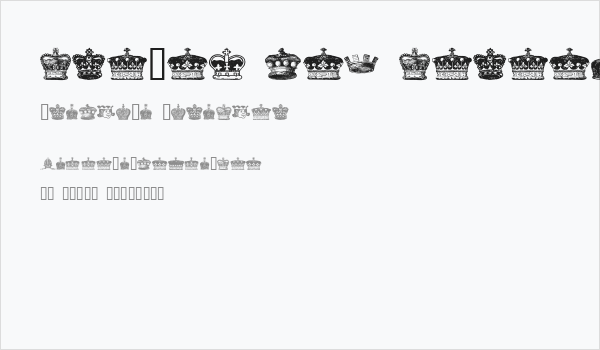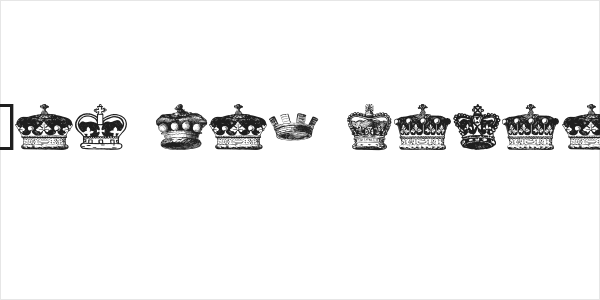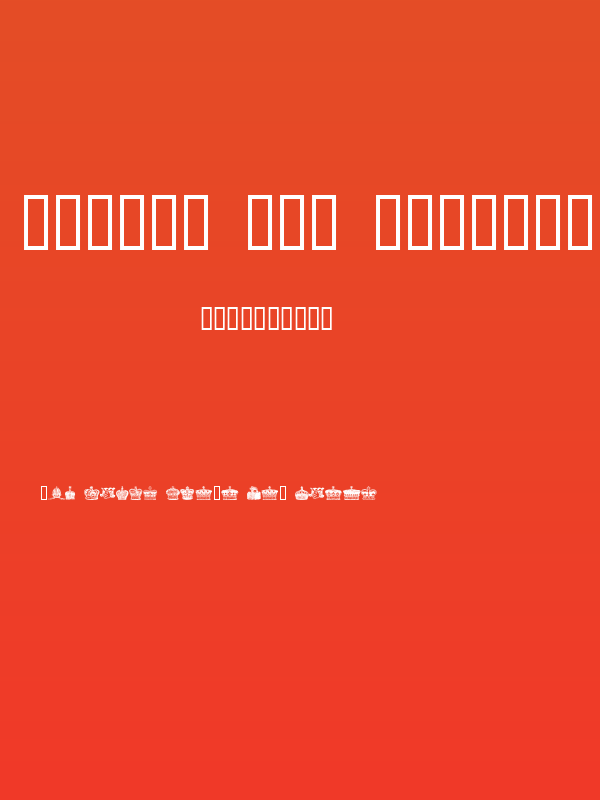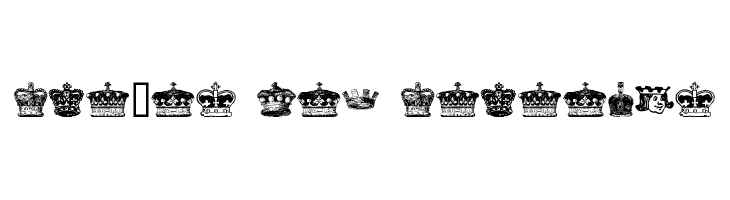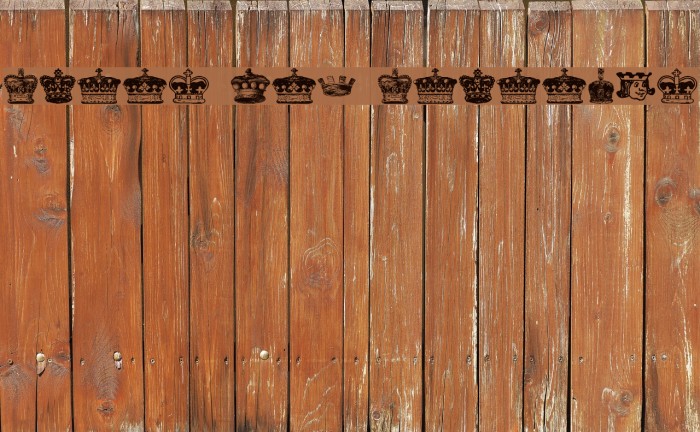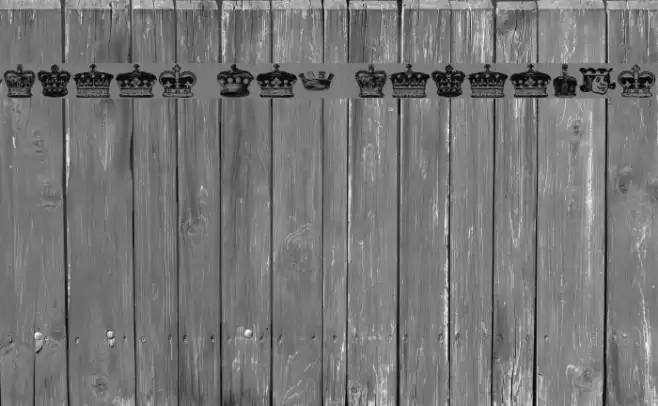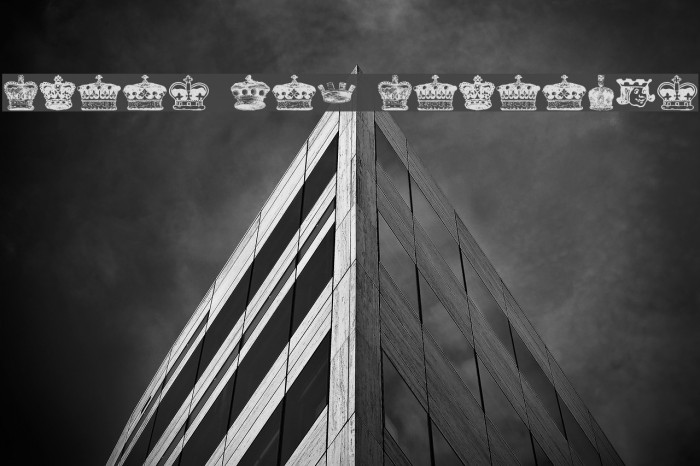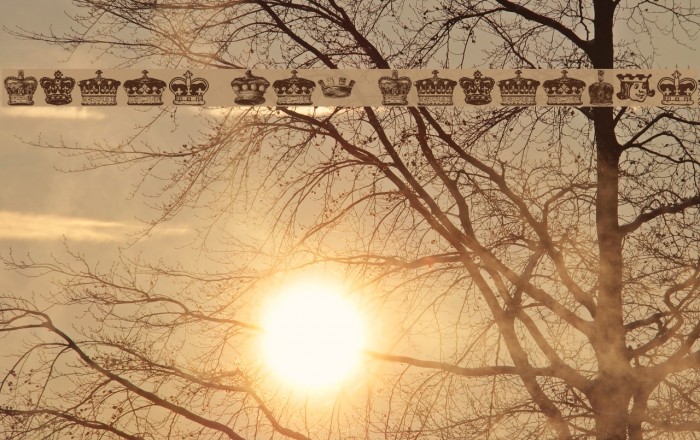
crowns and coronets Font
crowns and coronets Description
A decorative dingbat font featuring detailed black-and-white illustrations of various crowns, coronets, and royal headpieces, rendered in a vintage engraving style.
| Overall Style | Vintage, Decorative |
| Use Case | Decorative elements, embellishments, icons. |
| Proposed Projects | Invitations, certificates, heraldic designs, themed event materials, scrapbooking, decorative borders. |